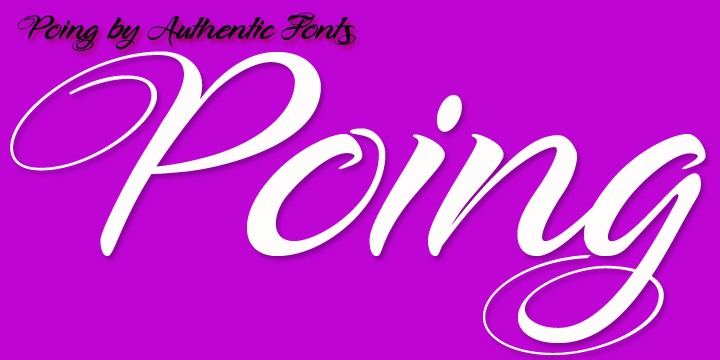
Poing is an exceptionally elegant script, I took my fathers Penn font and pimped it to a higher level. It is perfect for invitations and business cards.
Poing